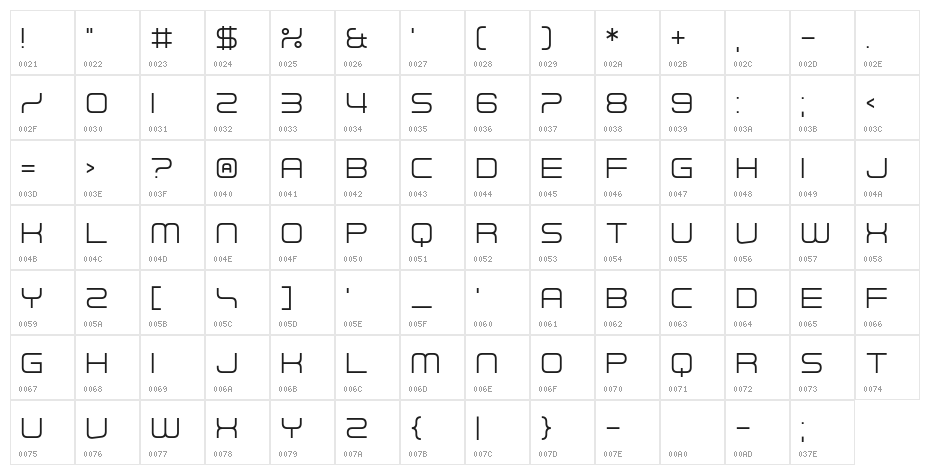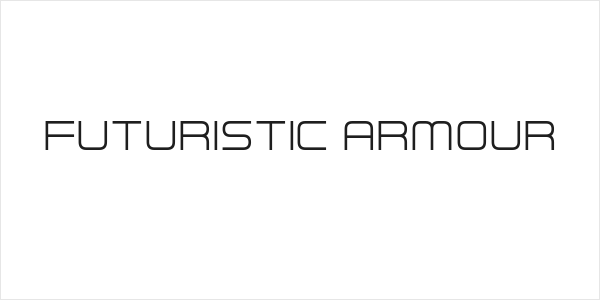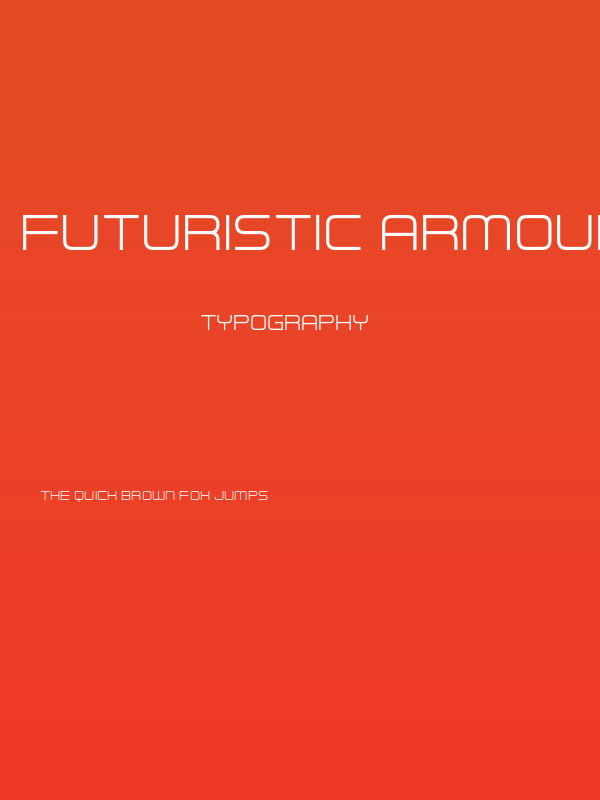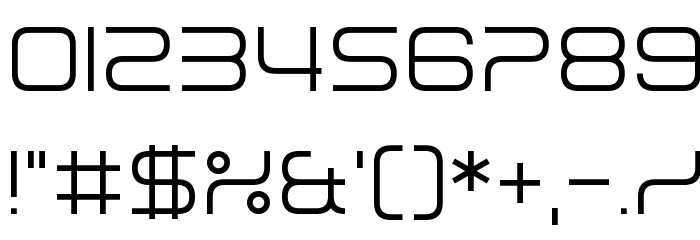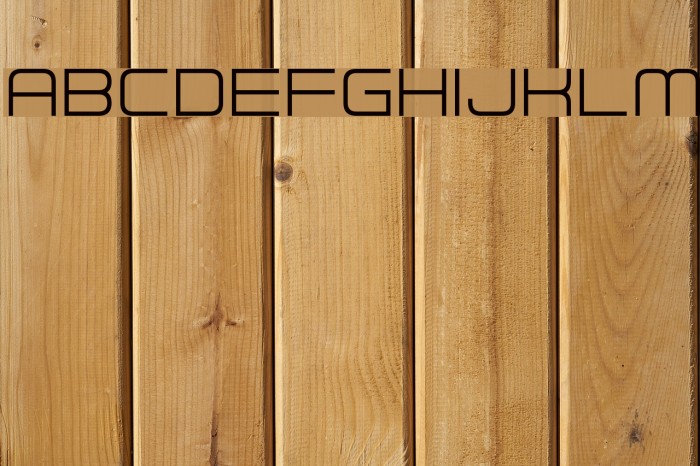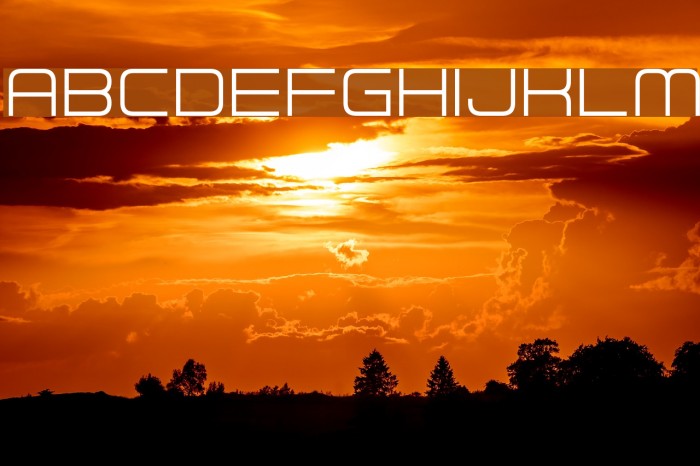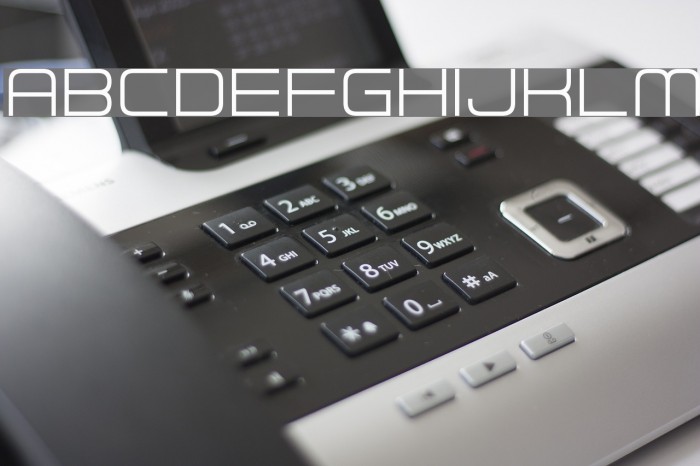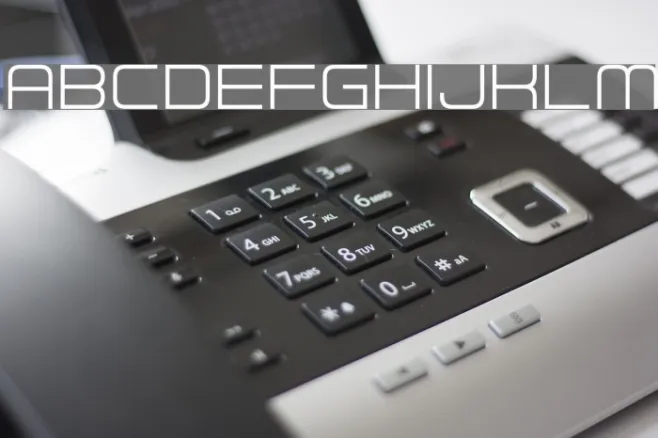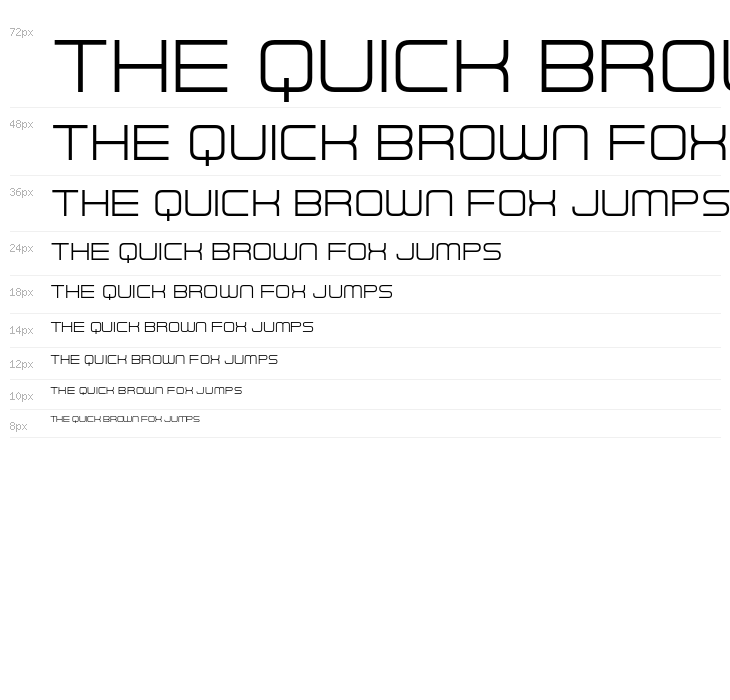
Futuristic Armour Font
Futuristic Armour Description
This font embodies a sleek, futuristic design with a geometric and minimalistic approach. The characters are composed of clean, straight lines and rounded edges, creating a modern and streamlined appearance. The uniformity in stroke width across all characters gives it a cohesive and balanced look. The uppercase and lowercase letters maintain a consistent style, enhancing readability while preserving a distinct, avant-garde aesthetic. The numerals and special characters are crafted with the same precision, ensuring they blend seamlessly with the alphabetic characters. This font is ideal for projects that require a contemporary and innovative feel.
| Proposed Projects | Ideal for tech branding, sci-fi movie posters, modern website headers, and innovative product packaging. |